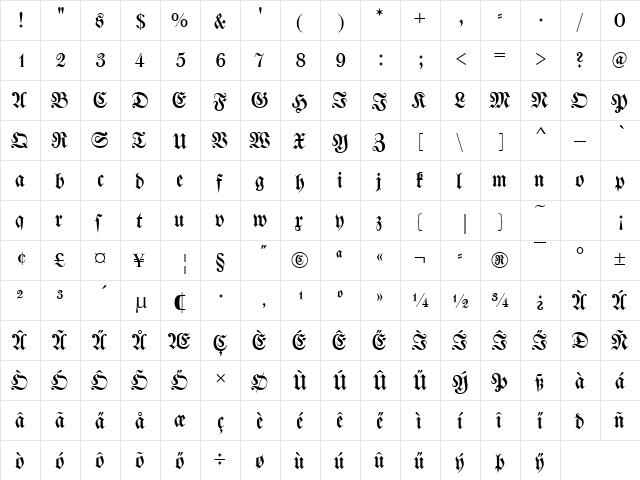
WalbaumFraT Regular
Design Context for WalbaumFraT Typeface
WalbaumFraT is a composed and adaptable typeface that performs quietly and consistently across a wide range of design contexts.